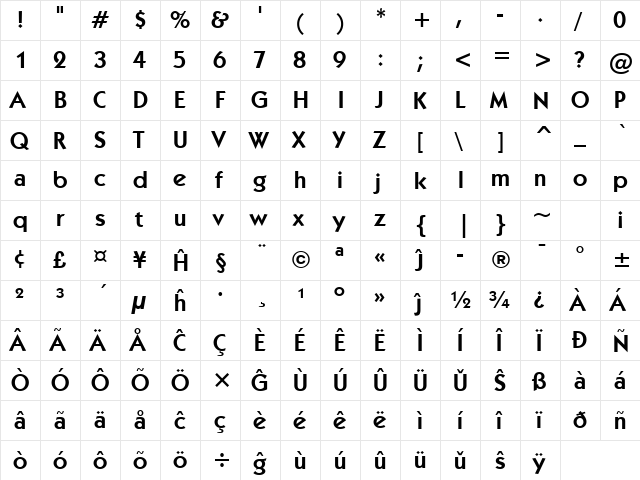
Kabel Dm BT Eo Demi Font Preview
Kabel Dm BT Eo Demi
Design Context for Kabel Dm BT Eo Typeface
Kabel Dm BT Eo takes a measured approach to typography — its balanced proportions and neutral character make it a reliable workhorse for both digital and print work.